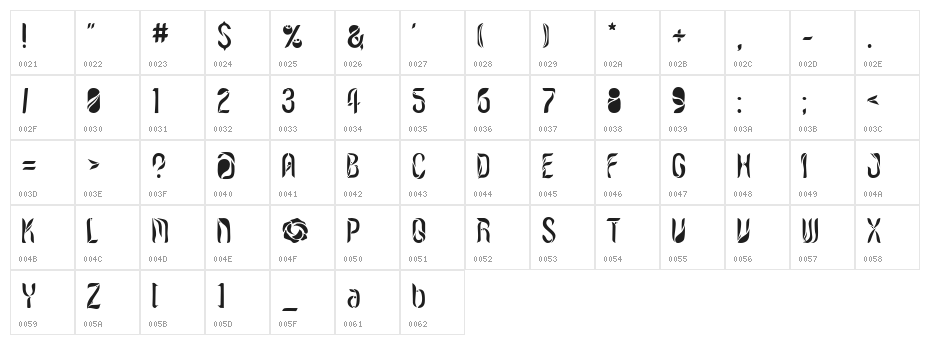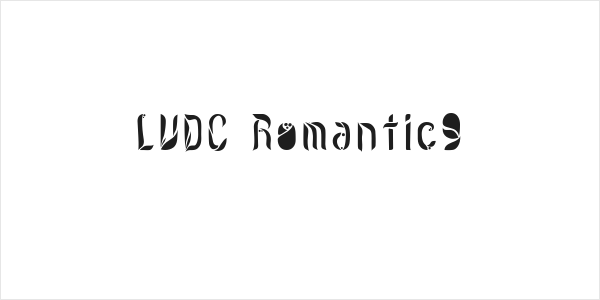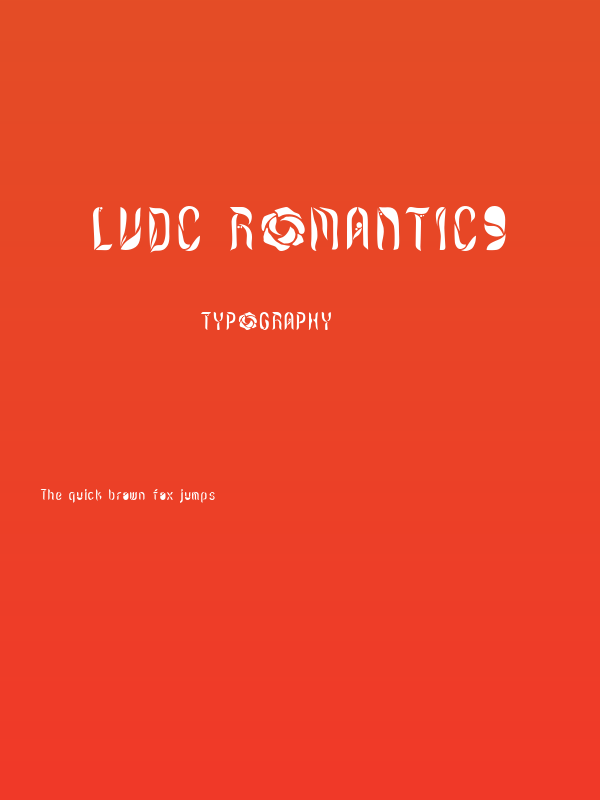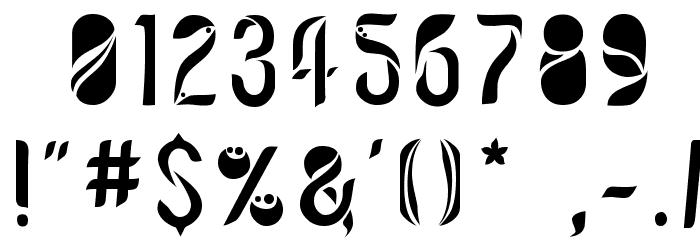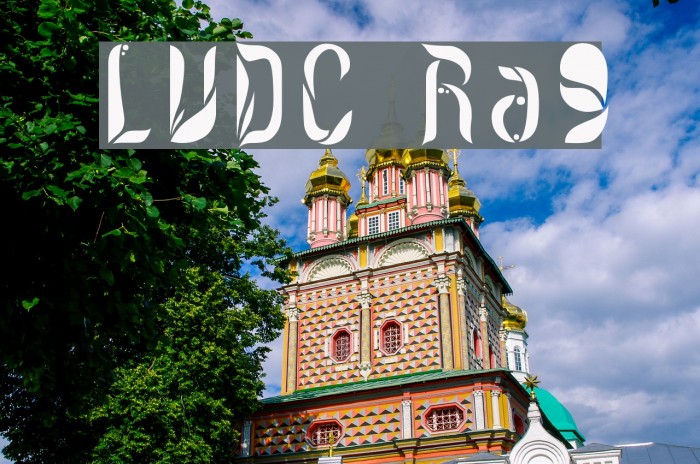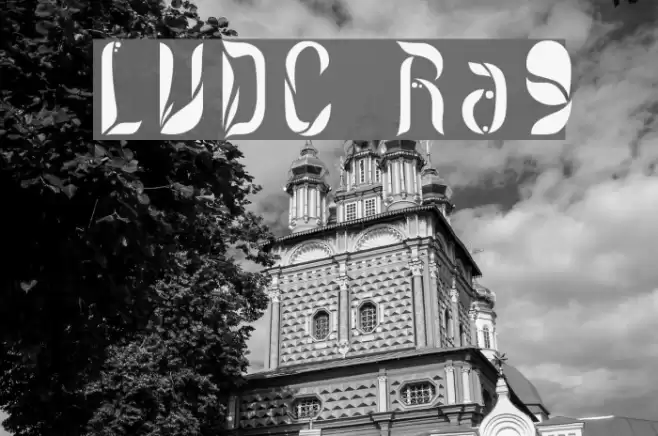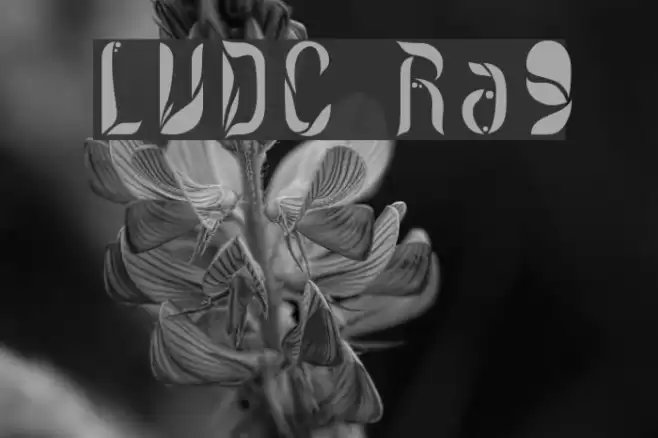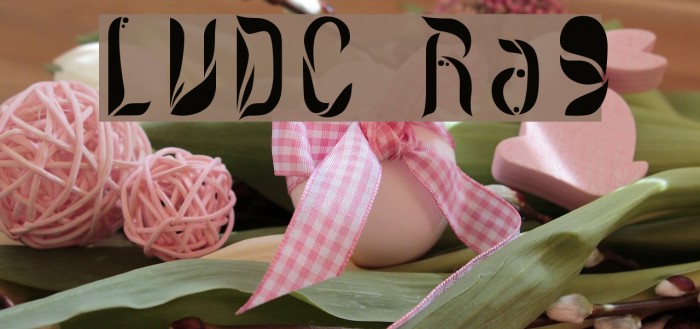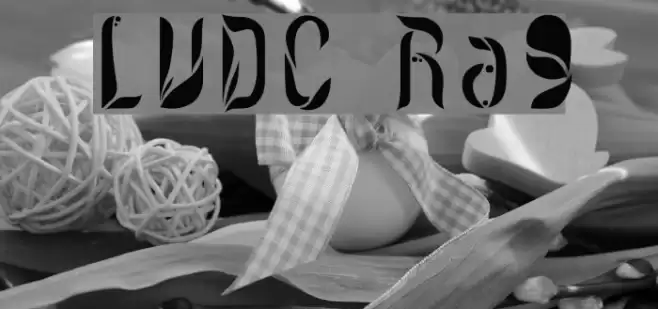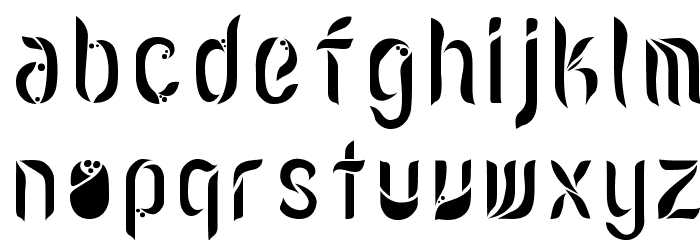
LVDC Romantic9 Font
LVDC Romantic9 Description
This font features a unique and artistic design with intricate cutouts and decorative elements within each character. The letters are bold and have a playful yet sophisticated appearance, making them stand out. The uppercase and lowercase letters maintain a consistent style, with some characters incorporating swirling or floral motifs. The numbers and special characters follow the same decorative theme, ensuring a cohesive look across all glyphs. This font is ideal for creative projects that require a touch of elegance and flair.
| Use Case | Logos, Headlines, Artistic projects |
| Proposed Projects | Ideal for wedding invitations, artistic posters, branding materials, and creative logos. |